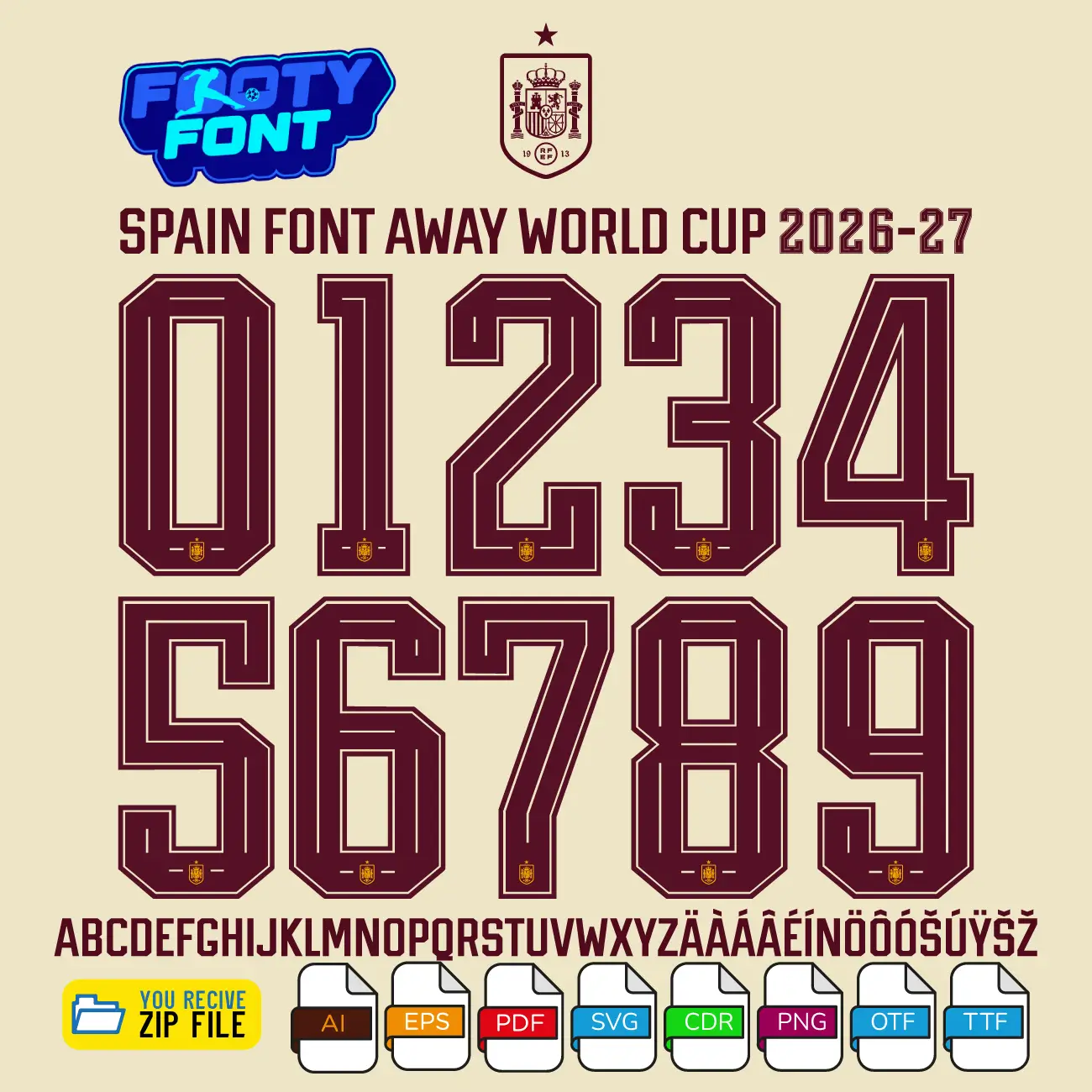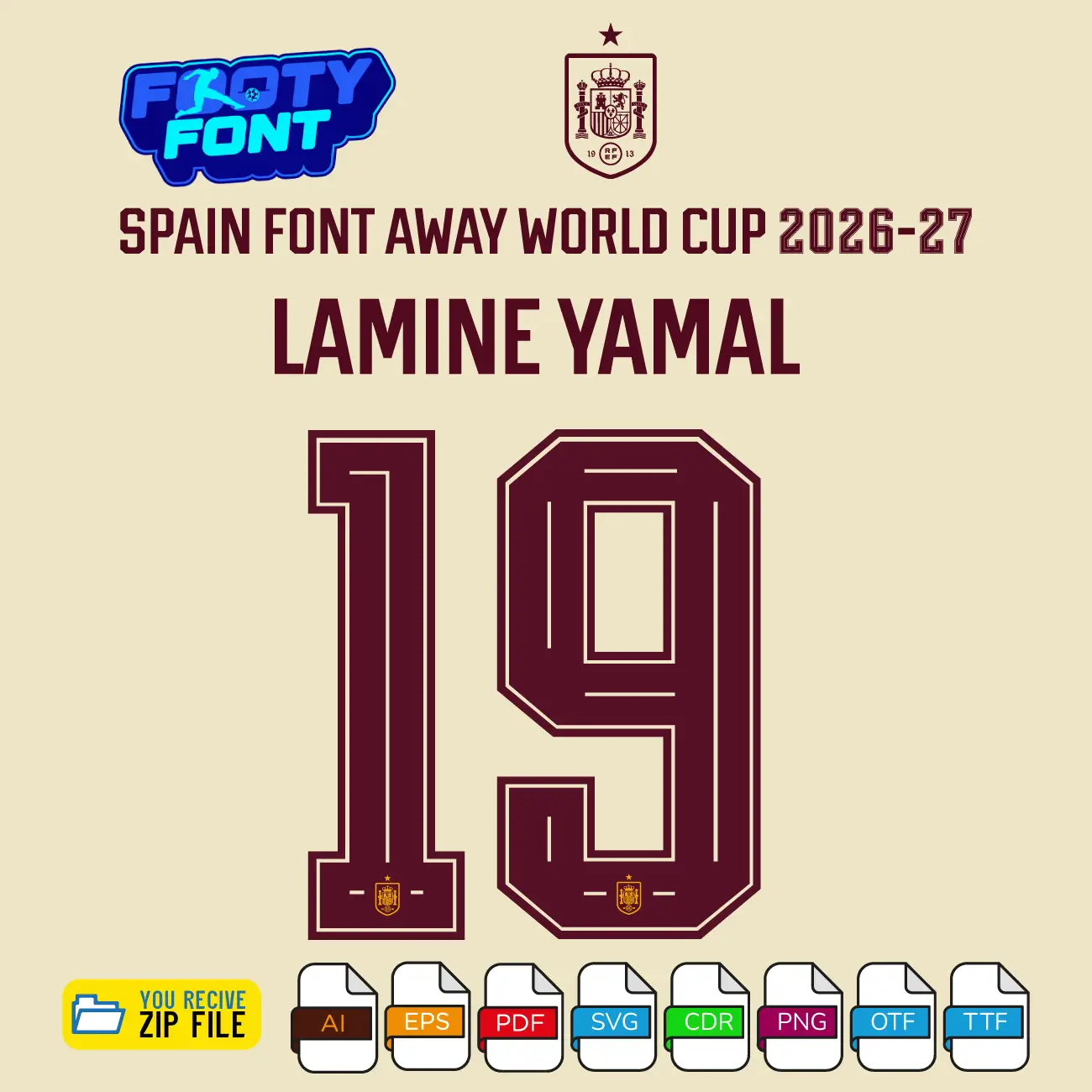
Spain Font World Cup 2026 (Away Kit)
Capture the elegance of La Roja with this font, inspired by the Spain 2026 World Cup Away kit. This typeface features a sophisticated dark red (burgundy) design that contrasts perfectly with the team’s unique away colors, offering a stylish alternative to the classic home look.
This font captures the fresh style worn by Spain’s exciting young talents like Lamine Yamal, Nico Williams, and Pedri. It is essential for fans creating custom jersey designs, digital art, or posters that celebrate the modern, fashionable side of the Spanish National Team.
Composite image showing a Spanish player wearing the elegant cream away jersey alongside the complete character set of the Spain Font World Cup 2026 Away.
A complete look at the Spain Font World Cup 2026 Away, featuring the full number set and a real-world jersey mockup.
Use this font to bring the unique style of La Furia Roja into your designs—whether for custom jersey graphics, fan merchandise, posters, or social media content.
Spain 2026 World Cup Away kit font showing the complete alphabet and numbers in dark red.